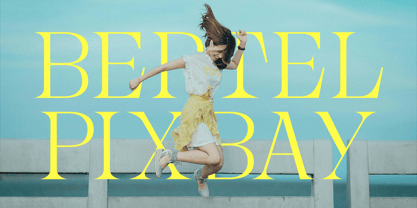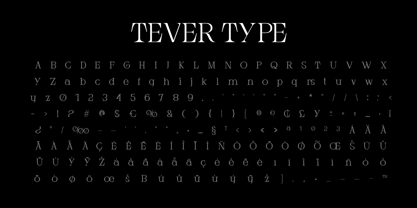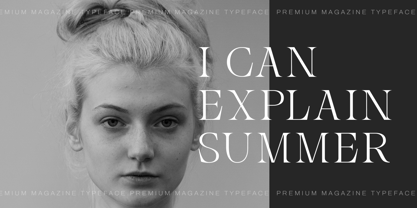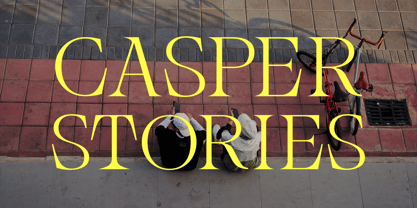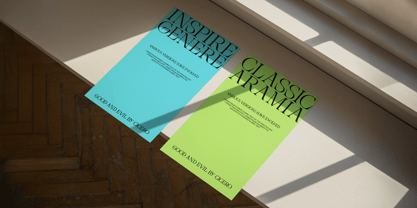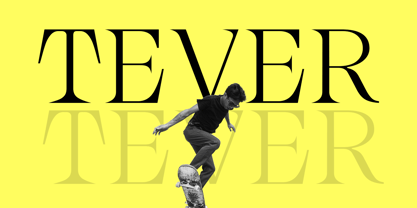
Tever Display
by FoxType
The Tever Display Font Family was designed by Evin Tony and published by FoxType. Tever Display contains 2 styles and family package options. More about this family
Tever Typeface is a bold and sophisticated type family meticulously crafted for standout branding and editorial design. Tailored for high-impact visual storytelling, Tever strikes the perfect balance between elegance and authority—making it ideal for magazine covers, fashion spreads, product packaging, and upscale brand identities.
With clean lines, refined proportions, and a contemporary edge, Tever commands attention without overpowering the layout. Its versatile weights and stylistic alternates offer flexibility, enabling designers to create both timeless headlines and expressive typographic compositions.
Whether you’re curating a luxurious print cover or building a modern visual identity, Tever Typeface ensures your message is delivered with clarity, style, and distinction.